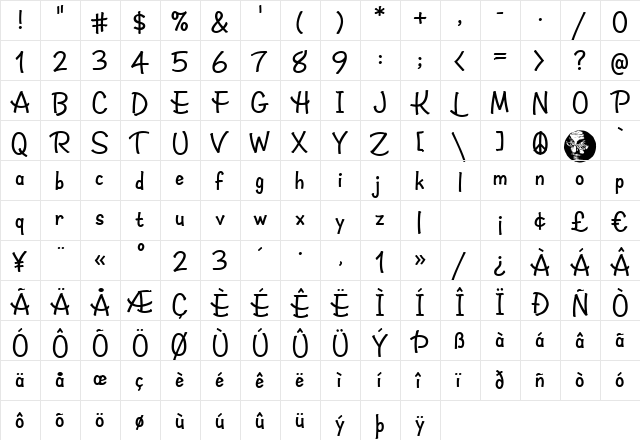
Humdinger Regular
Design Context for Humdinger Typeface
Humdinger takes a measured approach to typography — its balanced proportions and neutral character make it a reliable workhorse for both digital and print work.
Pro Tip: Pair Humdinger with a font of contrasting weight or personality to build a more expressive typographic hierarchy.